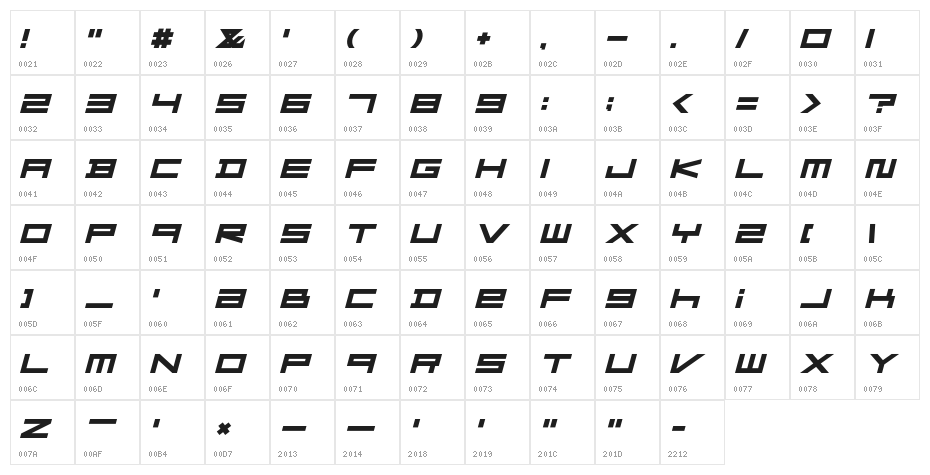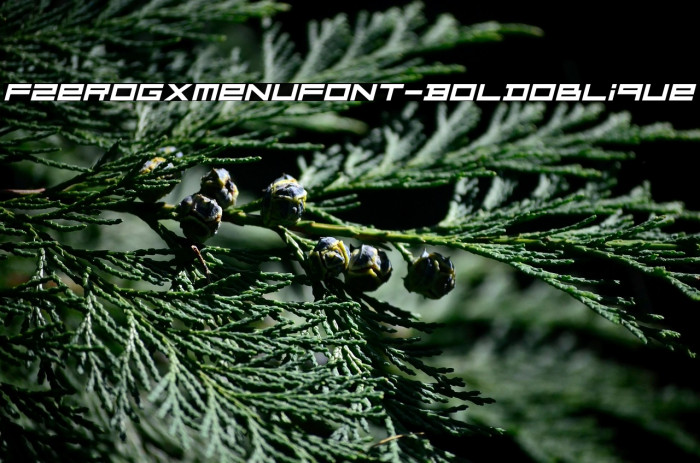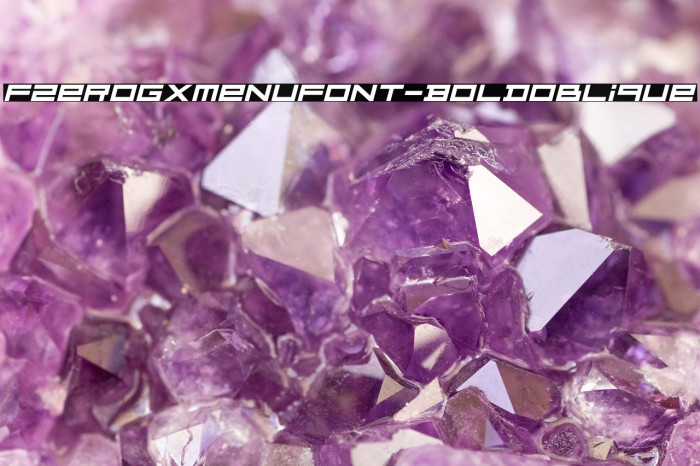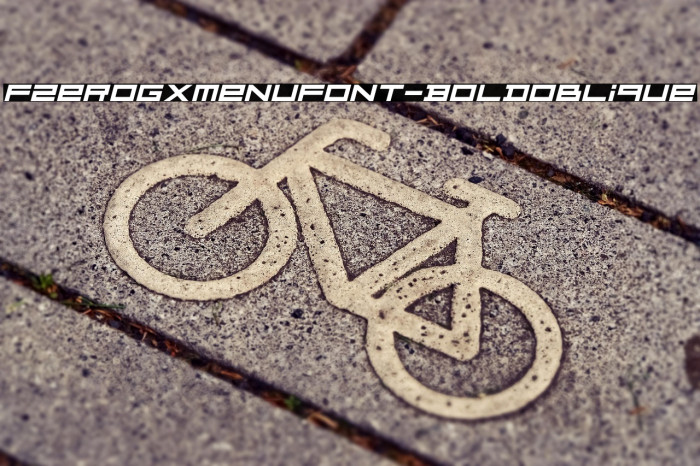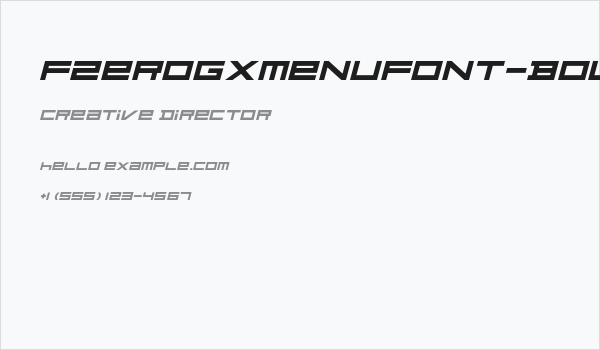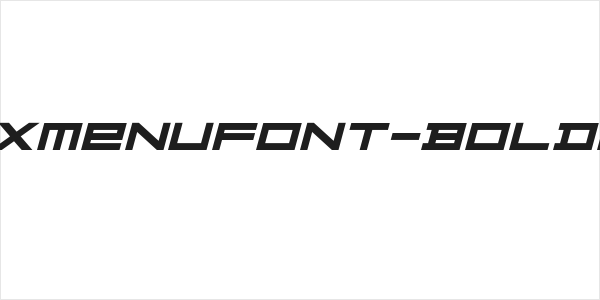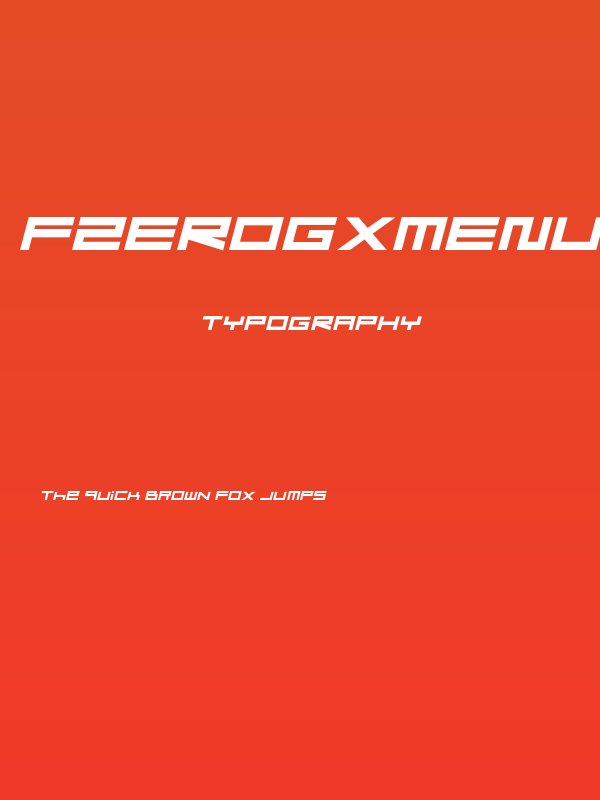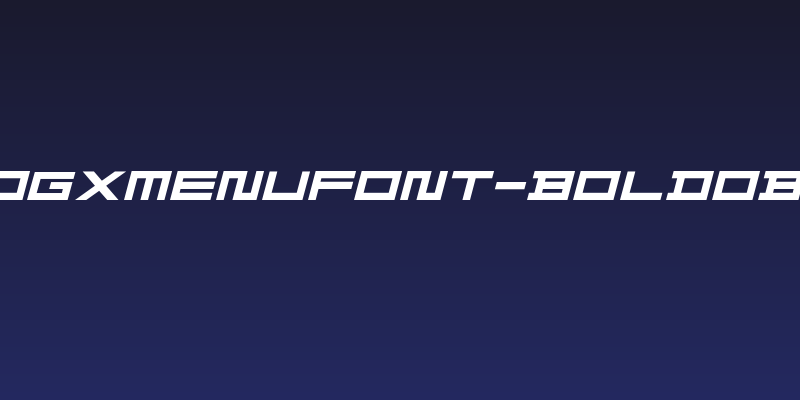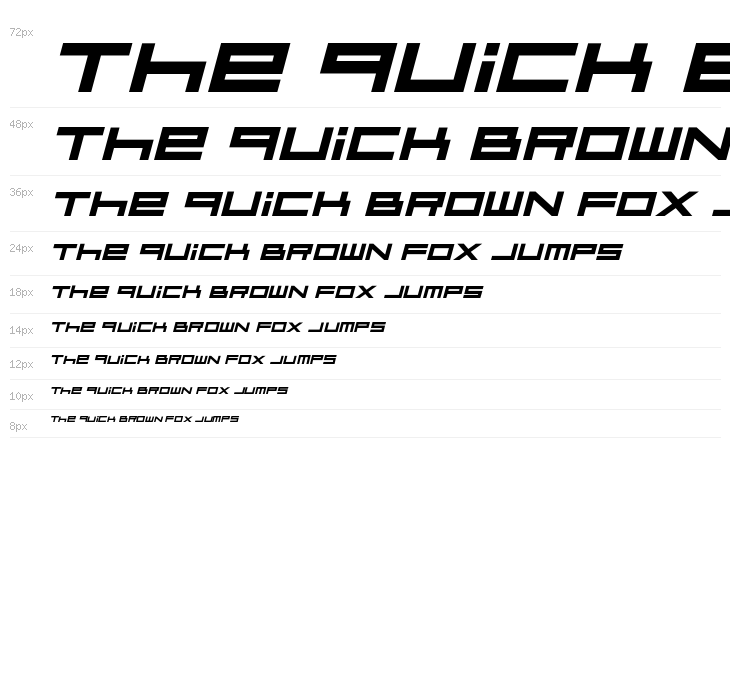
FZeroGXMenuFont-BoldOblique Font
FZeroGXMenuFont-BoldOblique Description
This font exhibits a bold and dynamic style with an oblique slant, giving it a sense of motion and speed. The characters are angular and geometric, with sharp edges and a futuristic aesthetic. The uppercase and lowercase letters maintain a consistent design, emphasizing a streamlined and cohesive look. The numerals and special characters follow the same design principles, ensuring uniformity across all glyphs. This font's boldness and oblique nature make it stand out, ideal for projects that require a modern and energetic feel.
| Proposed Projects | Ideal for video game titles, sci-fi movie posters, sports branding, and dynamic logo designs. |